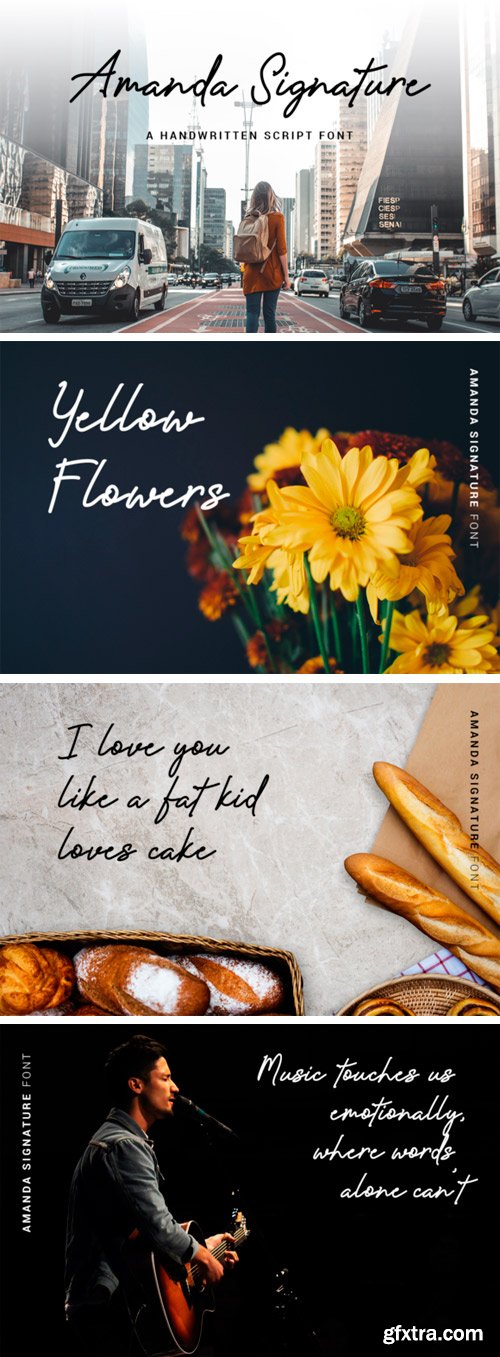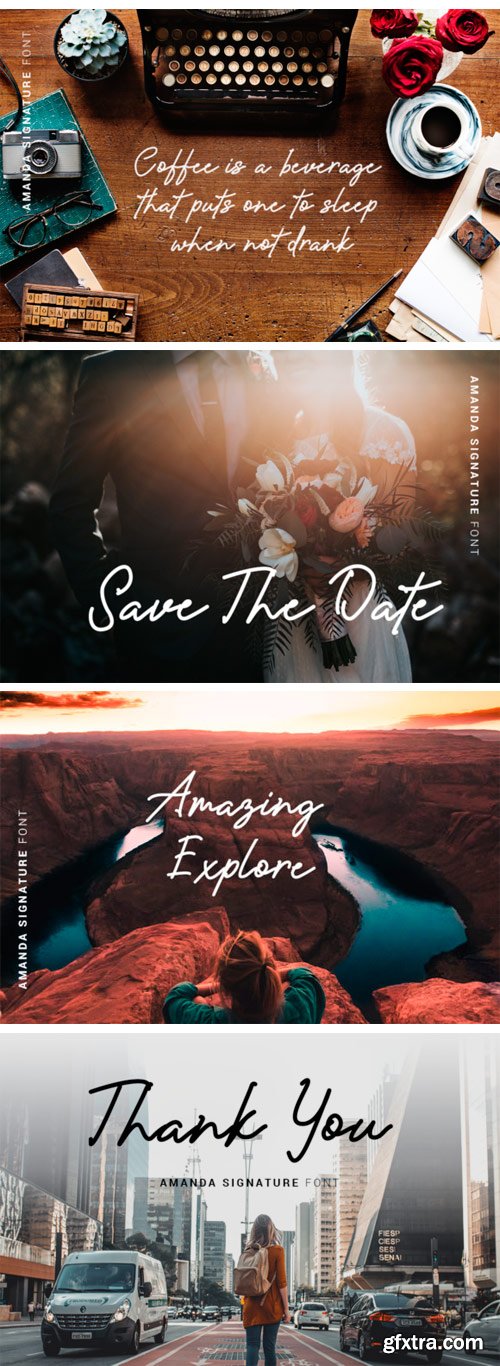
阿曼达字体
Amanda Font
The Amanda is a handwritten signature script. It has a natural and stylish flow. Everything from personal branding & wedding invitations to advertising could benefit from this script font.